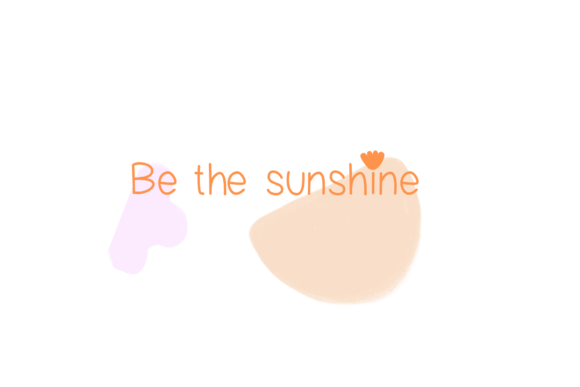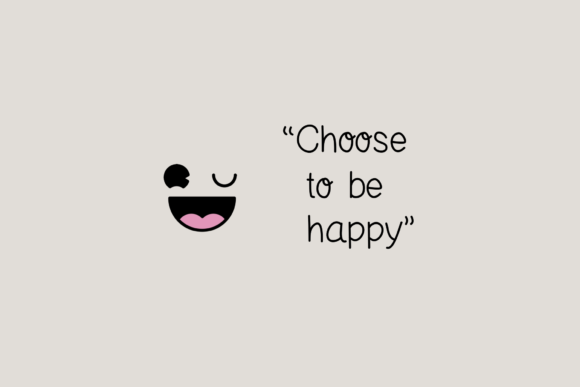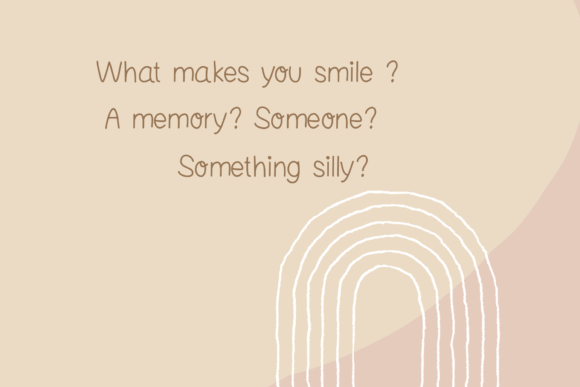
Discover the Charm of Amelia Font: A Cute and Simple Handwritten Font
Are you a designer, crafter, or educator looking for a font that can add a personal touch to your projects? Look no further than Amelia Font, a delightful and straightforward lettered handwritten font that’s perfect for creating chalkboard quotes, teaching materials, and more. With its authentic look and feel, Amelia Font is sure to bring a sense of warmth and realism to your designs.
What is Amelia Font?
Amelia Font is a carefully crafted handwritten font that’s designed to mimic the look of traditional chalkboard writing. Its simple, yet charming lettering style makes it an excellent choice for a wide range of projects, from educational materials and quotes to craft projects and DIY tutorials. Whether you’re creating something for a classroom, a craft fair, or social media, Amelia Font is sure to add a touch of personality and whimsy to your designs.
Key Features of Amelia Font
- Cute and Simple Design: Amelia Font boasts a clean and uncomplicated design that’s easy to read and visually appealing.
- Handwritten Style: The font’s handwritten style gives it a personal and authentic feel that’s perfect for creating unique and engaging designs.
- Chalkboard-Inspired: Amelia Font’s chalkboard-inspired look makes it an excellent choice for creating quotes, posters, and other materials that need to stand out.
- Versatile: This font is versatile and can be used for a wide range of projects, from educational materials to craft projects and more.
Who Can Benefit from Amelia Font?
Amelia Font is an excellent choice for a variety of individuals and groups, including:
- Educators: Teachers, tutors, and educators can use Amelia Font to create engaging and interactive teaching materials, such as worksheets, posters, and presentations.
- Designers: Graphic designers, digital artists, and crafters can use Amelia Font to add a personal touch to their designs, from social media graphics to print materials.
- Crafters: Crafters, makers, and DIY enthusiasts can use Amelia Font to create unique and eye-catching labels, signs, and other materials for their projects.
- Small Business Owners: Small business owners, especially those in the education, craft, or DIY niches, can use Amelia Font to create branded materials that stand out and connect with their audience.
Tips for Using Amelia Font
To get the most out of Amelia Font, here are a few tips to keep in mind:
- Pair with Other Fonts: Amelia Font pairs well with other fonts, especially those with a similar handwritten or chalkboard-inspired style. Experiment with different combinations to find the perfect look for your project.
- Use for Headlines and Titles: Amelia Font is perfect for headlines and titles, where its bold and playful style can really shine.
- Add Texture and Effects: Consider adding texture or effects to your Amelia Font design to give it a more authentic, chalkboard-like feel.
- Experiment with Colors: Amelia Font looks great in a variety of colors, from classic black and white to bright and bold hues. Don’t be afraid to experiment and find the perfect color scheme for your project.
Amelia Font is a charming and versatile handwritten font that’s perfect for designers, educators, crafters, and small business owners looking to add a personal touch to their projects. With its authentic look and feel, Amelia Font is sure to bring a sense of warmth and realism to your designs. Whether you’re creating teaching materials, craft projects, or social media graphics, Amelia Font is an excellent choice. So why not give it a try and see how it can elevate your designs?